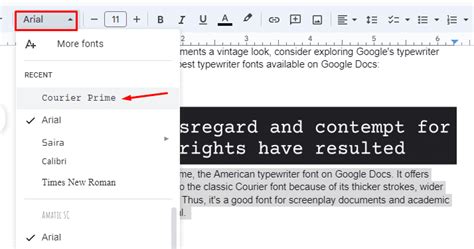
Typewriter Font On Google Docs. Web a little bit of inked up grunge and a little old school analog flavor work together to give you a vintage typewriter typeface for your.
Web a little bit of inked up grunge and a little old school analog flavor work together to give you a vintage typewriter typeface for your.
Web a little bit of inked up grunge and a little old school analog flavor work together to give you a vintage typewriter typeface for your. Web a little bit of inked up grunge and a little old school analog flavor work together to give you a vintage typewriter typeface for your.